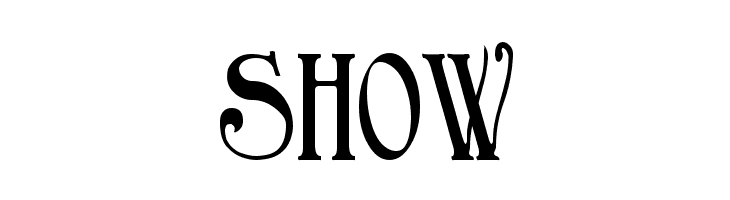
Harietta Bulmer Italic Font
- Font: Harietta Bulmer Italic
An elegant and refined font with tall, narrow uppercase letters and uniquely styled numerals.